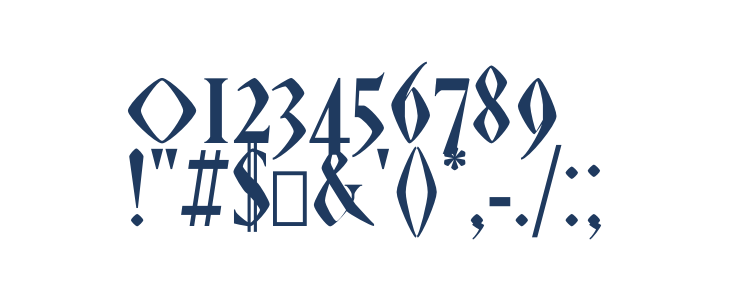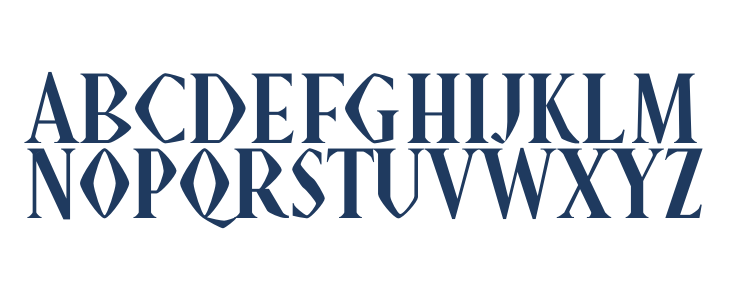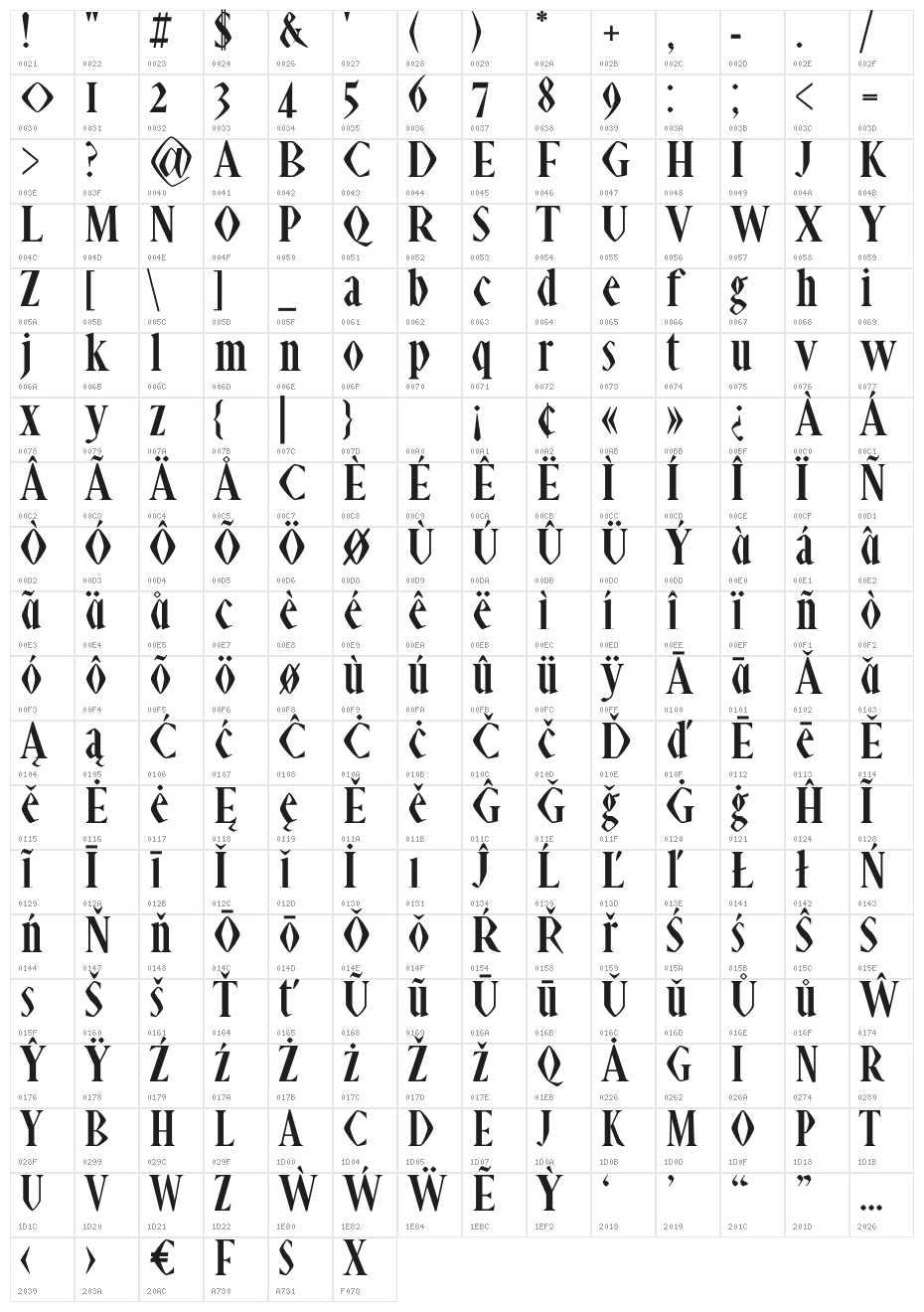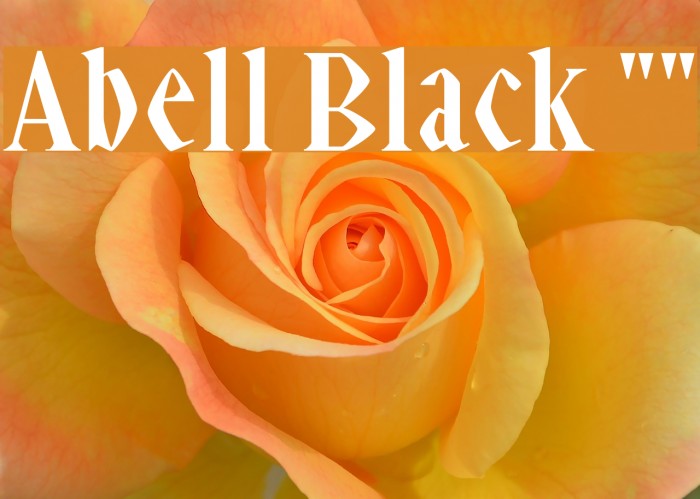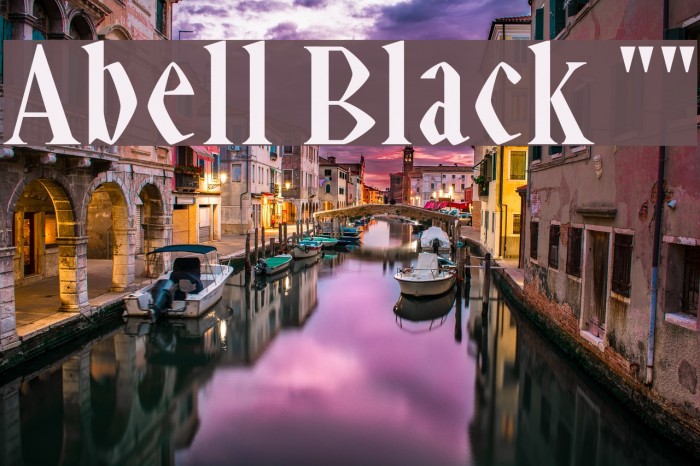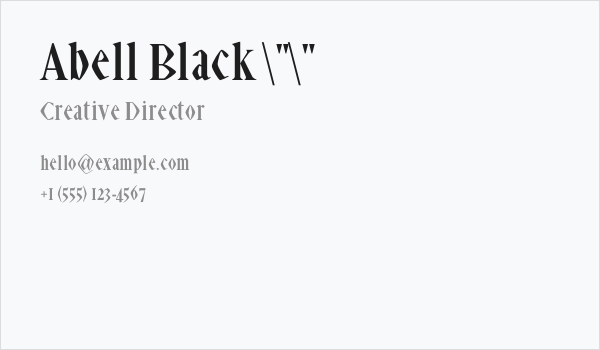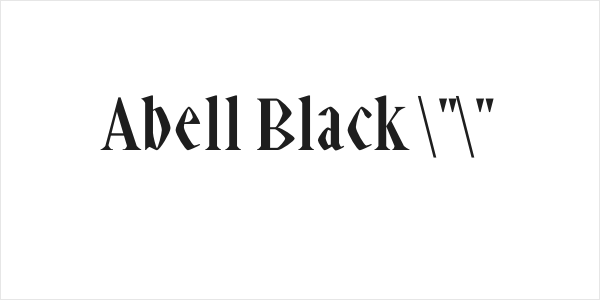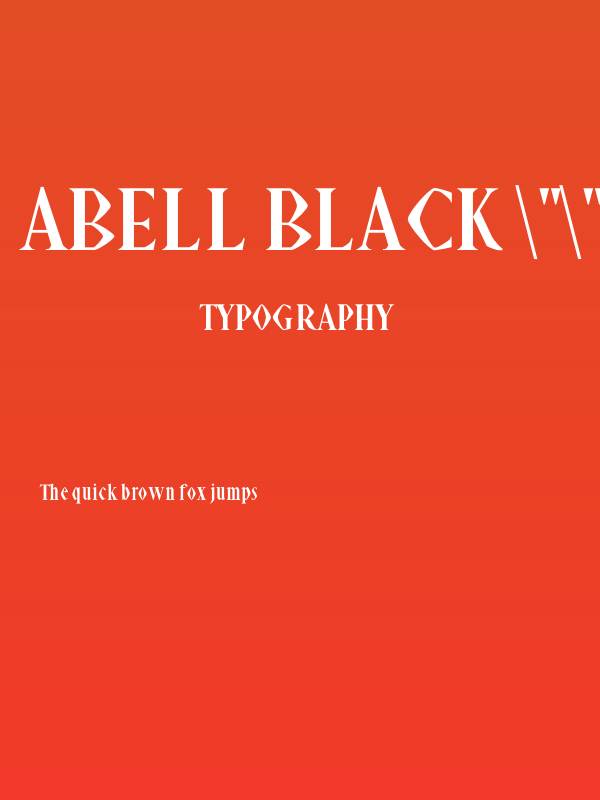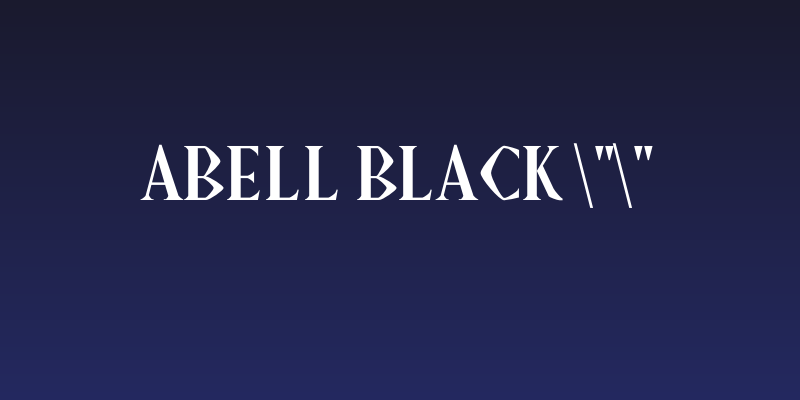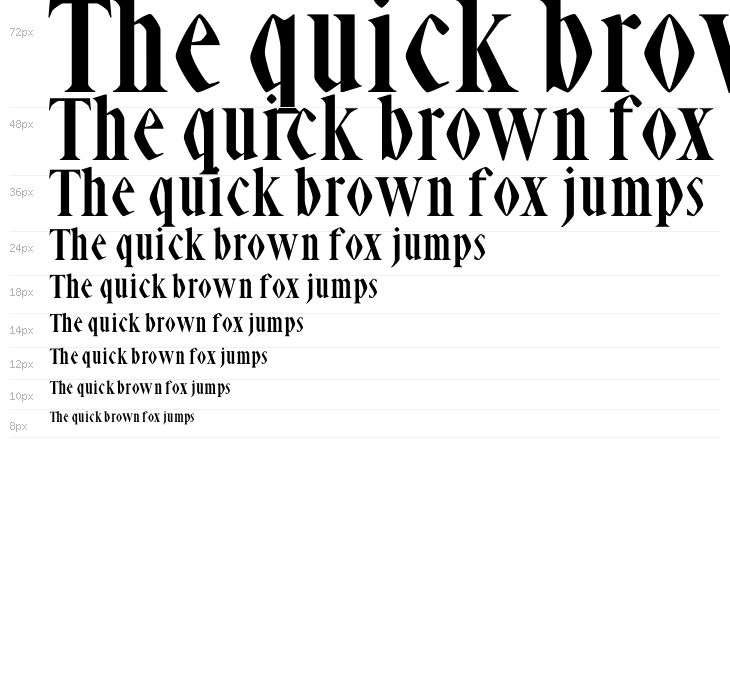
Abell Black "" Font
Abell Black "" Description
This font features a bold and striking design with sharp, angular edges and a strong presence. The uppercase letters are tall and commanding, while the lowercase letters maintain a consistent style with slightly more curves. The numerals are distinct and maintain the same boldness as the letters, ensuring readability. Special characters are designed with unique flair, adding to the font's overall dramatic appearance. The font's high contrast between thick and thin strokes enhances its visual impact, making it ideal for attention-grabbing designs.